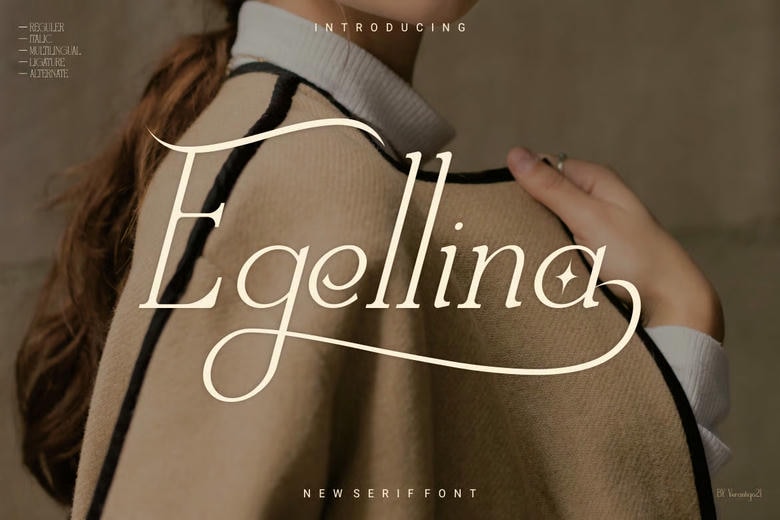
Egellina Font
Egellina is a contemporary and daring condensed typeface. Being influential and powerful in its lines and distinctive cut details, Egellina is ideal to produce eye-catching headlines, logos, as well as posters. Its large and blocky typeface gives it a sense of power and authority, and it is best suited to the project that should be memorable and attract a strong impression.
Egellina robust, condensed style is the flexible answer to boosting the visual impact whether you design advertisement, fashion, or branding of creative character.
Egellina Serif Font